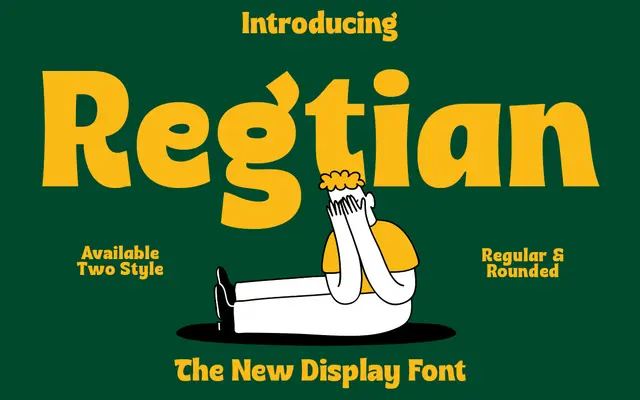
PC Regtian
Prioritype · Prioritype Co · 2024
A chunky display sans in two styles, Regular and Rounded, with retro and groovy leanings suited to posters and logotypes.
Released in September 2024, PC Regtian comes in Regular and Rounded cuts, both built around heavy, attention-seeking letterforms with alternate characters for added variety. The retro character references 1960s to 1990s vernacular typography, making it a candidate for music, merchandise and packaging work. Latin Extended language support covers a wide range of Western and African languages.
A bold display-weight sans-serif with rounded and standard variants, designed primarily for headlines, posters and branding rather than continuous text.